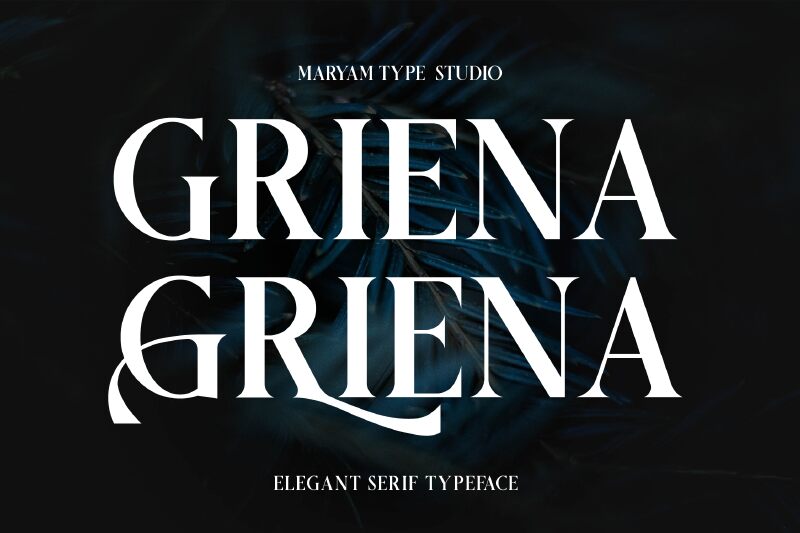
Step into the world of sophistication with Griena, a semi-bold and semi-condensed serif font meticulously crafted by Maryamtype Studio. With its modern elegance and distinct flair, Griena transcends the traditional boundaries of typeface design to offer creatives an exceptional tool for their artistic arsenal.
The graceful contours and balanced proportions of Griena make it a timeless choice for high-end branding projects. Its luxurious feel is ideally suited for fashion labels seeking an upscale touch or publications desiring a refined headline font that commands attention. Whether you're designing an elegant logo, curating the pages of a glossy magazine, or setting the scene with a captivating book title, Griena promises to deliver style and substance.
Unveil the potential of your next creative endeavor with Griena-a typeface where artistry meets accessibility in every perfectly drawn character.